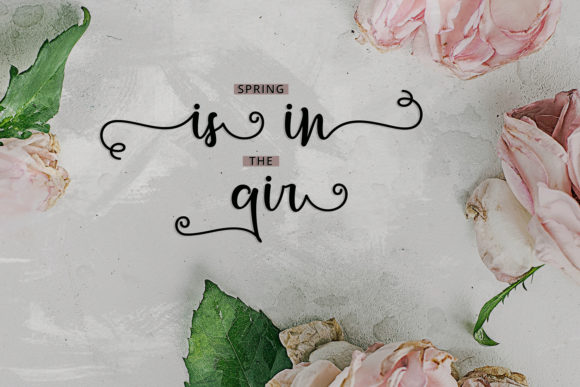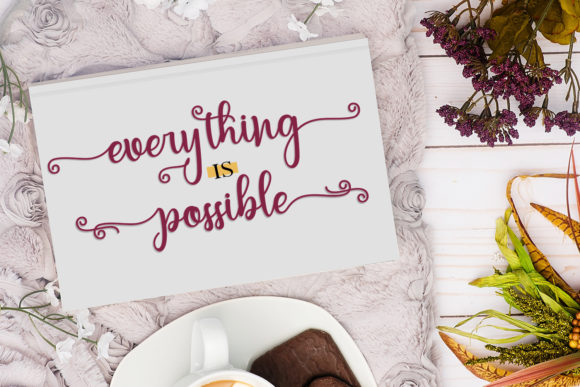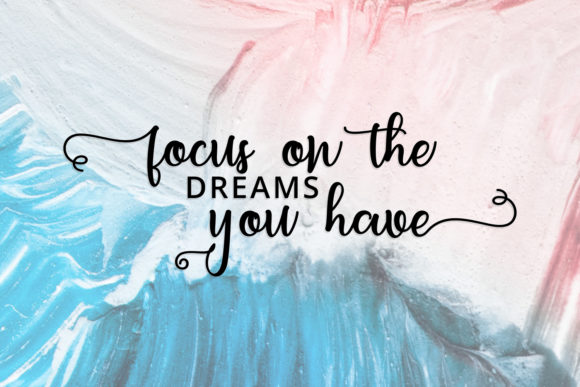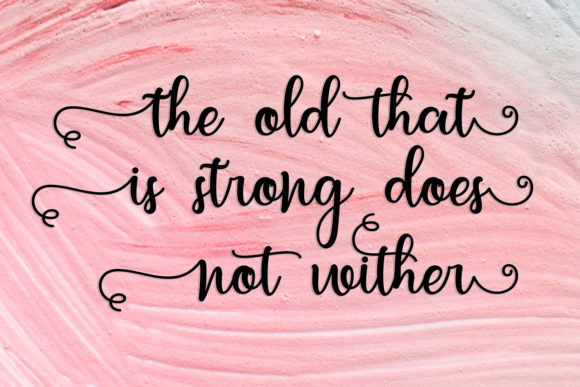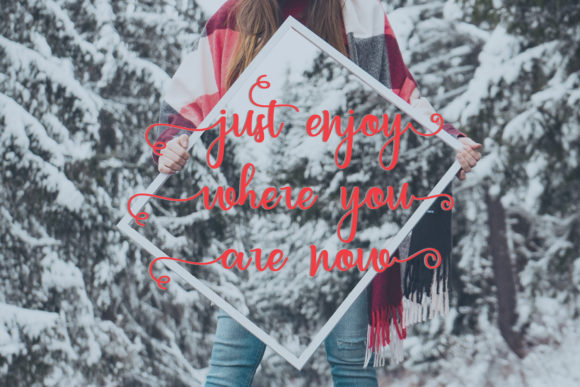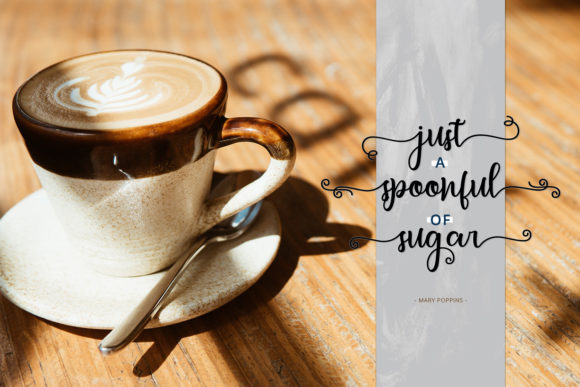
Introduction to Letterbest Script Font
Do you remember that moment when a single font changed the entire aesthetic of your creative project? For many designers, it’s a magical experience that can elevate a simple idea into a stunning work of art. For me, it was when I stumbled upon the Letterbest Script Font – a sweet and charming script that added a touch of elegance to my latest design.
As a designer, you’re always on the lookout for high-quality design resources that can help you create unique and captivating visuals. The Letterbest Script Font is an excellent addition to your toolkit, offering lovely swashes and a transparent background that makes it perfect for a variety of creative projects. Whether you’re working on a logo, invitation, or social media graphic, this font is sure to impress.
What sets Letterbest Script Font apart is its exceptional quality and versatility. With a free download available, you can start experimenting with this beautiful font right away. Whether you’re a seasoned designer or just starting out, this script font is a valuable resource that’s sure to inspire your next creative project.
Key Features of Letterbest Script Font
- Features a transparent background, allowing for seamless integration into designs and minimizing visual clutter.
- Includes a range of characters, including uppercase and lowercase letters, numbers, and punctuation marks, making it a versatile design resource.
Honest Review: Letterbest Script Font
I recently stumbled upon the Letterbest Script Font, and I must say, it’s a great addition to my design resource collection. This font is perfect for any creative project that requires a touch of elegance and sophistication.
One of the standout features of the Letterbest Script Font is its high-quality design. The font is crisp and clear, making it ideal for use in digital designs with a transparent background. I love how it adds a personal touch to my designs without overpowering the content.
Here are some things that work well with the Letterbest Script Font:
- ✨ Elegant and sophisticated design
- ✨ Perfect for creative projects with a transparent background
- ✨ High-quality design that’s crisp and clear
- ⚠️ Limited font sizes and styles available
- ⚠️ May not be suitable for use in large-scale or professional applications
Overall, I’m really impressed with the Letterbest Script Font. It’s a great free download that’s perfect for designers on a budget or those looking for a high-quality script font for their creative projects.
Letterbest Script Font
Tips for Getting the Most Out of Letterbest Script Font
Use a transparent background to make the font stand out.
Pair the font with a high-quality image for a visually appealing design.
Experiment with different font sizes and styles to create a unique look.
Common Use Cases for Letterbest Script Font
The Letterbest Script Font is ideal for wedding invitations, birthday cards, and other creative projects that require a touch of elegance and sophistication.
Use the font to add a personal touch to your design and make it stand out.